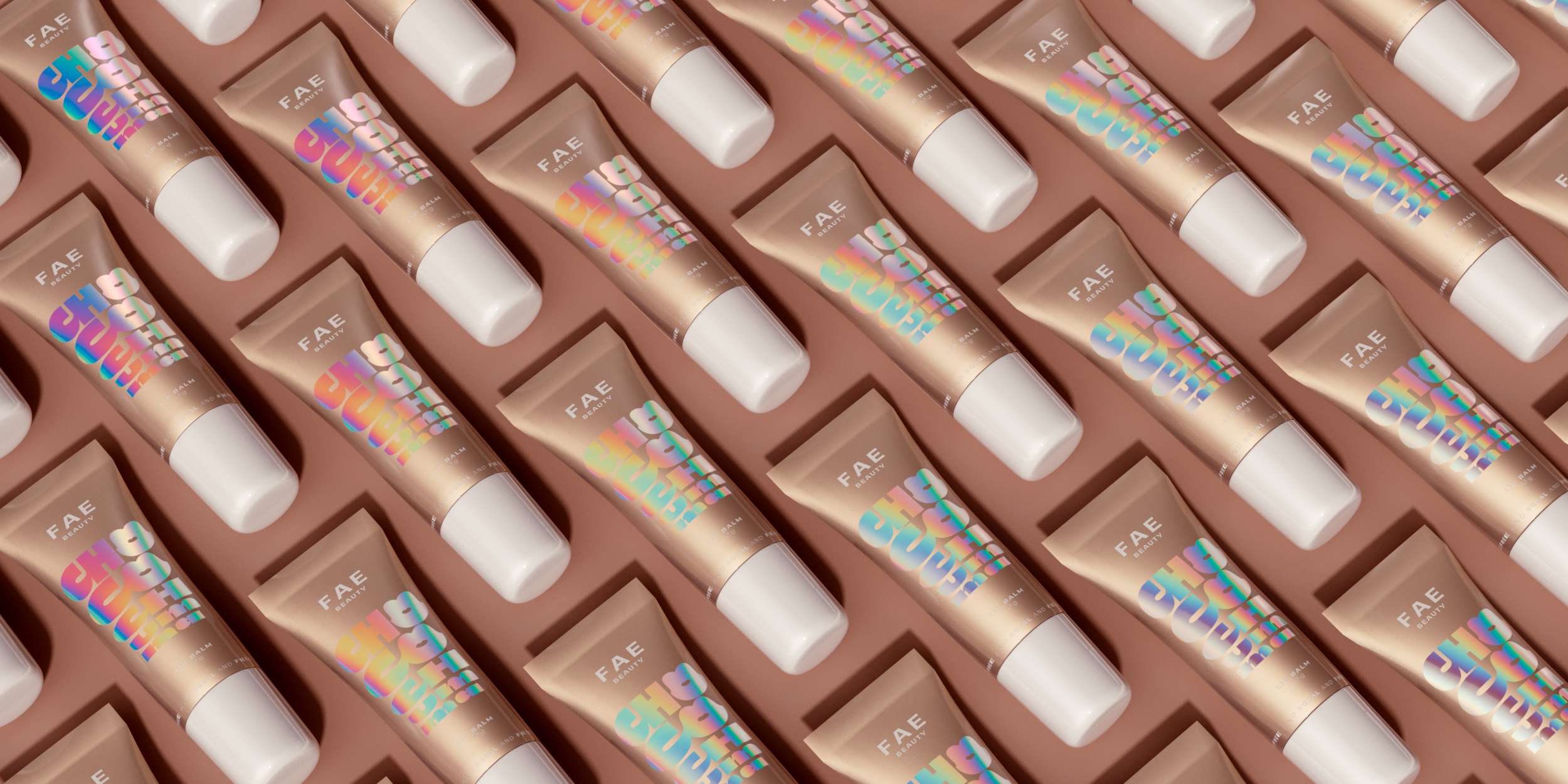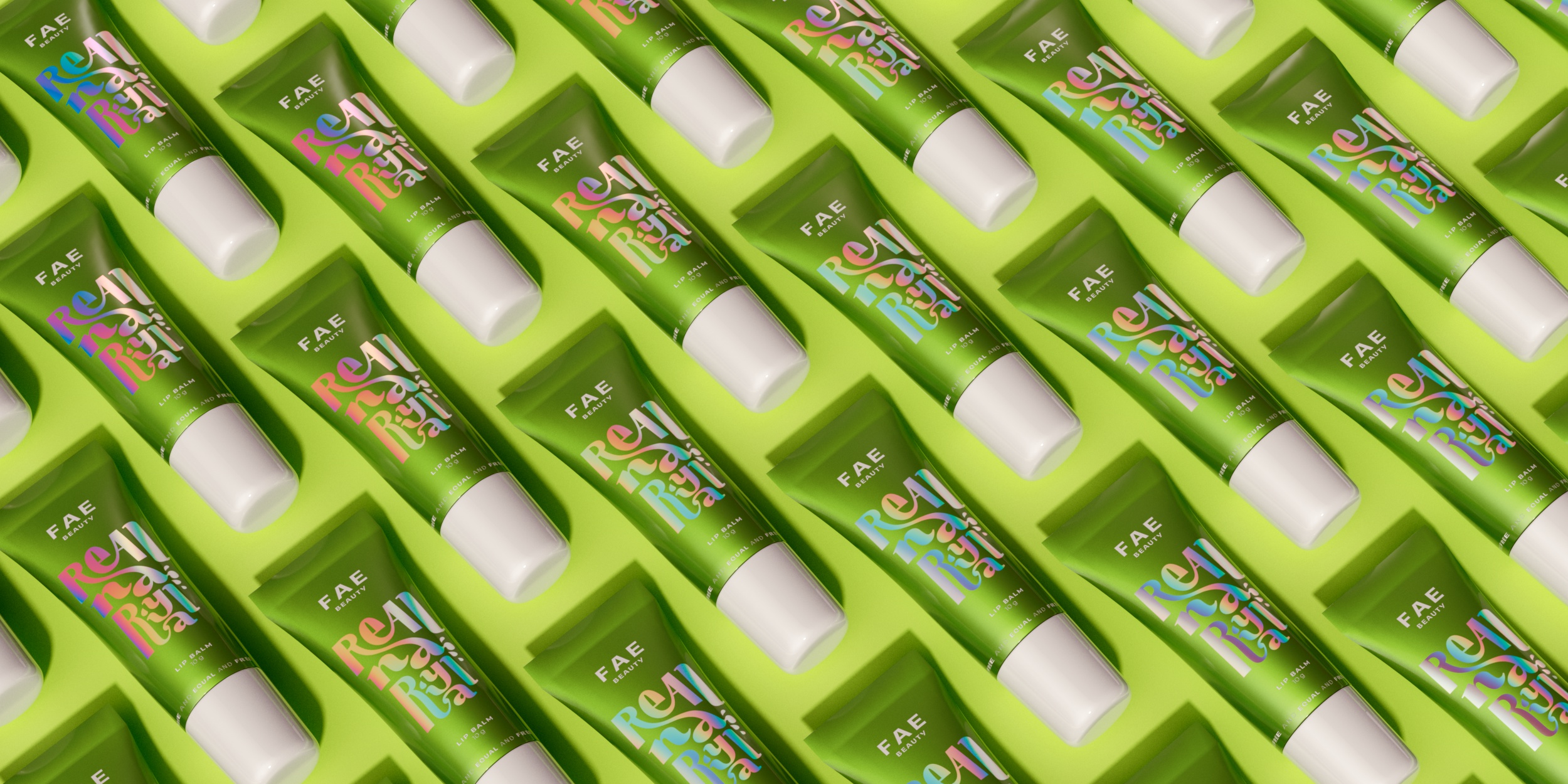
The goal of this design project was to infuse FAE Beauty's new range of Indian flavoured lip balms with a sense of nostalgia through typography, design and naming. The challenge was to convey the unique feeling behind each flavor while also creating a cohesive and eye-catching visual identity for the range.
Custom Type